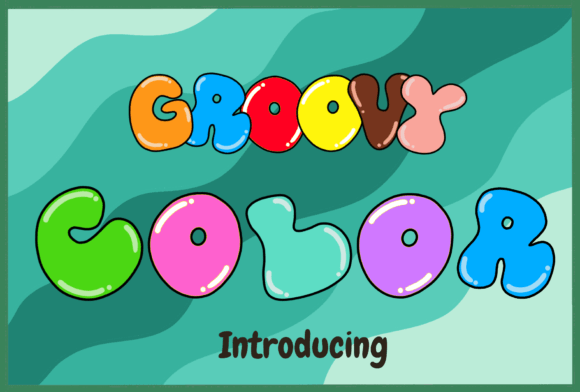
Welcome to the world of Groovy Color Font, the vibrant display font that's sure to make your designs dance! With its retro-inspired curves and playful colors, Groovy Color will take you back in time to the days of disco balls and roller skates. Feel the groove as you create posters that pop, album covers that rock, and social media posts that sizzle. This eye-catching font is perfect for injecting a dose of fun and energy into any project, whether you're a seasoned designer or just starting out.
Express your creativity with Groovy Color's playful curves and vibrant hues. The colors blend seamlessly, creating a dynamic and visually stunning effect that will leave your audience mesmerized. Whether you're creating a poster for a Valentine's Day party or designing a flyer for a groovy music festival, Groovy Color is the perfect choice to make your message stand out.
Step into the spotlight with Groovy Color and let your designs shine. Perfect for posters that demand attention, album covers that rock, and branding that exudes personality, this font is a must-have in your creative toolkit. Its retro charm and modern twist will make your designs stand out from the crowd, leaving a lasting impression on your audience.
With Groovy Color, the possibilities are endless. Unleash your creativity and let the colors flow. Grab Groovy Color today and start grooving your way to design greatness!